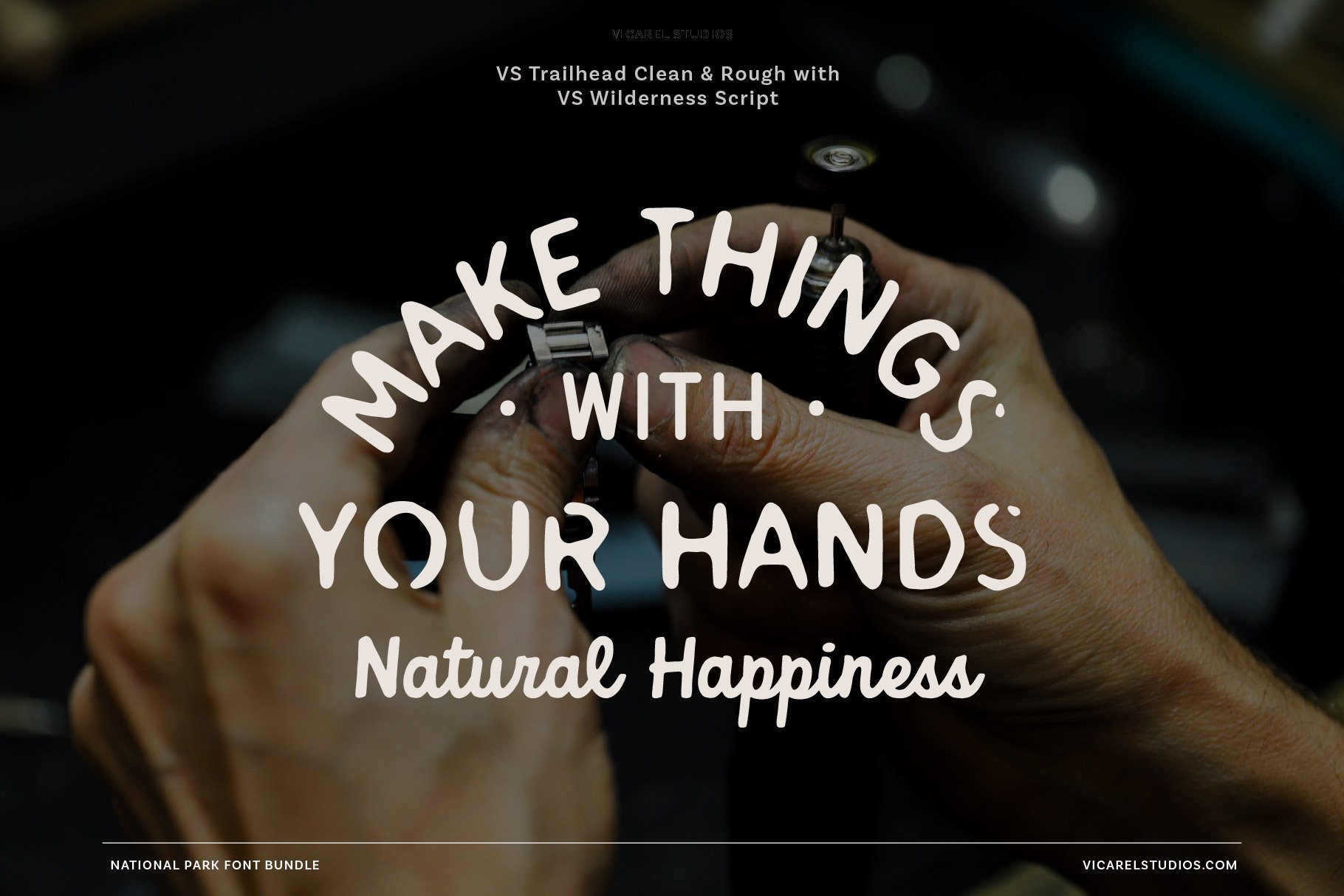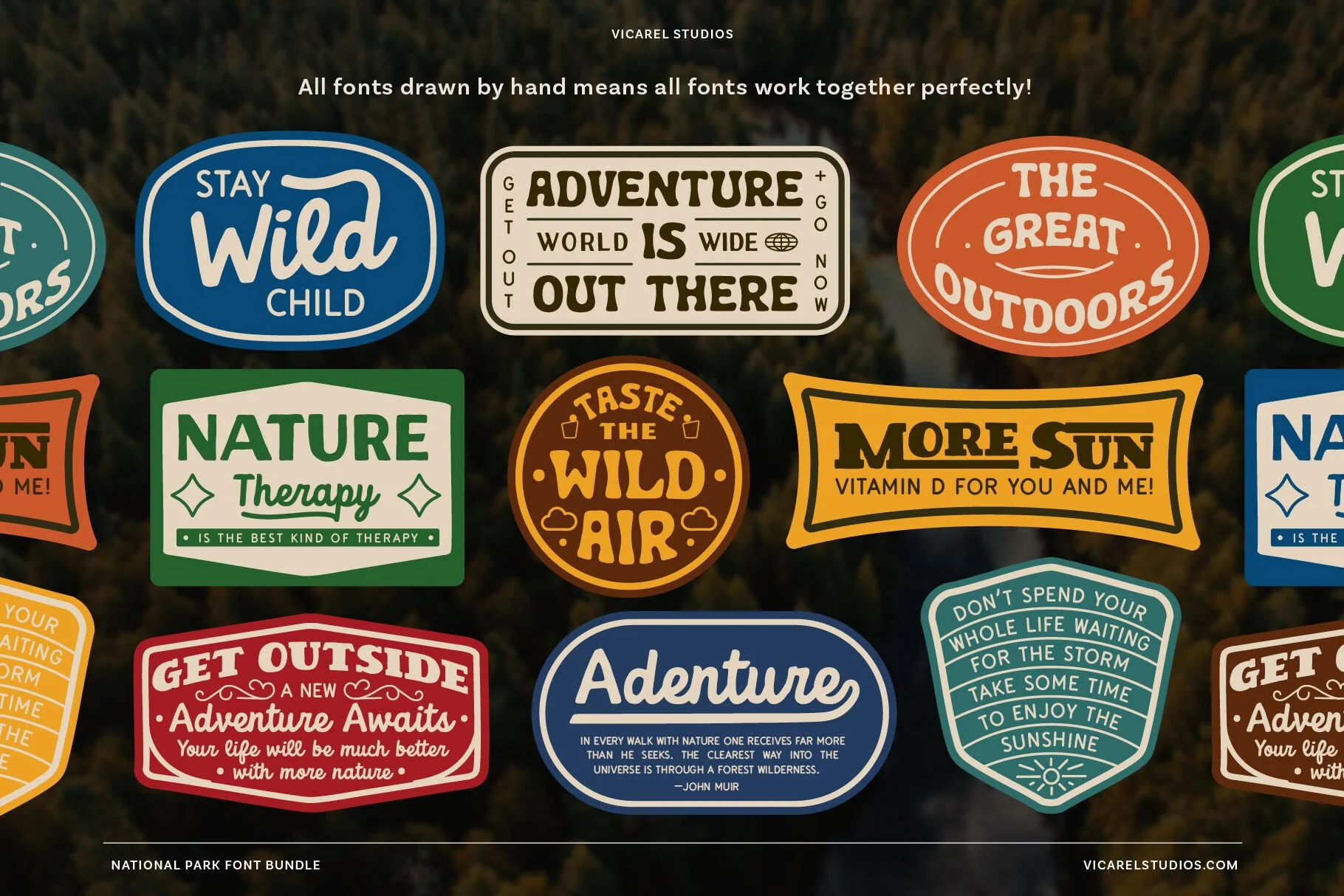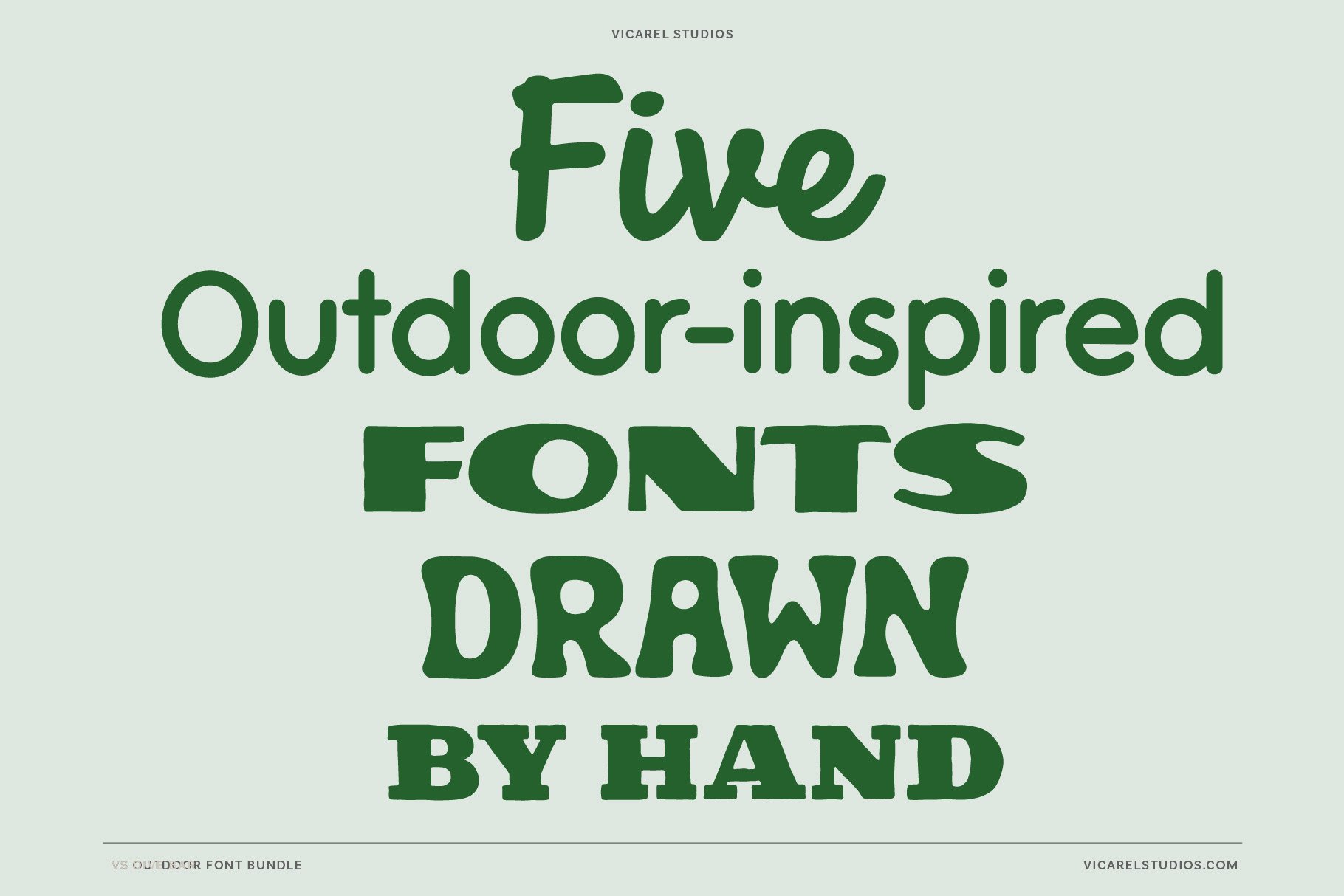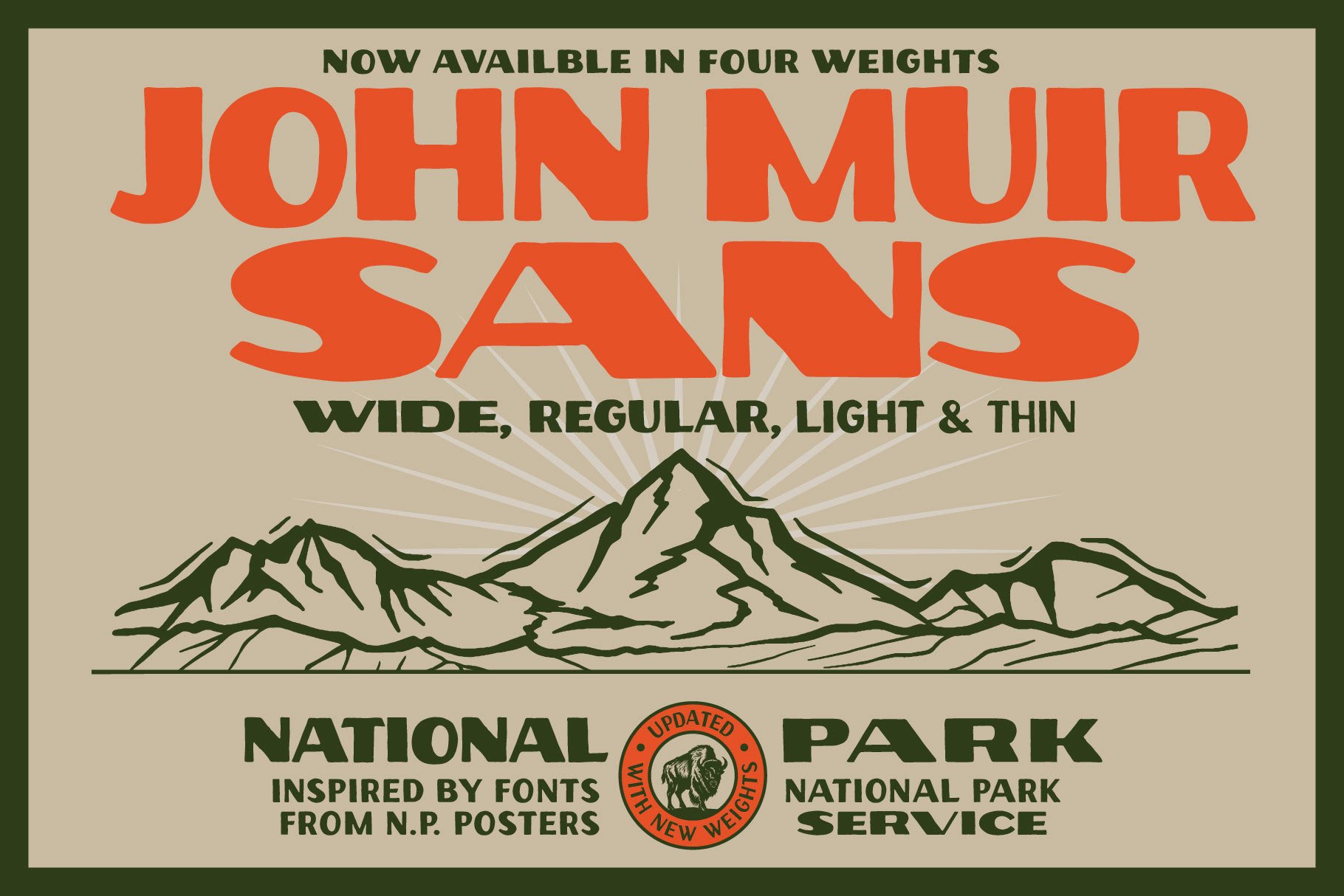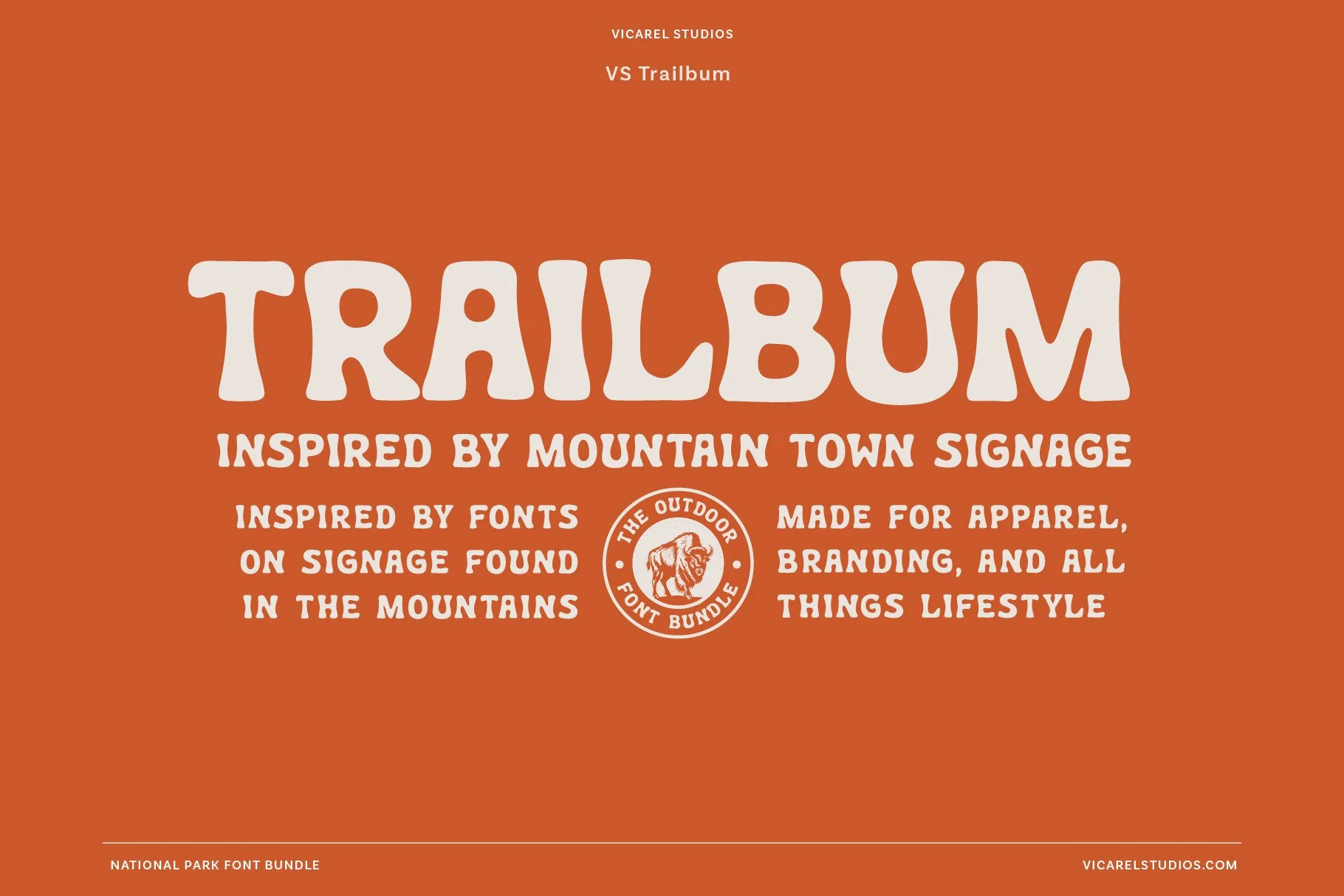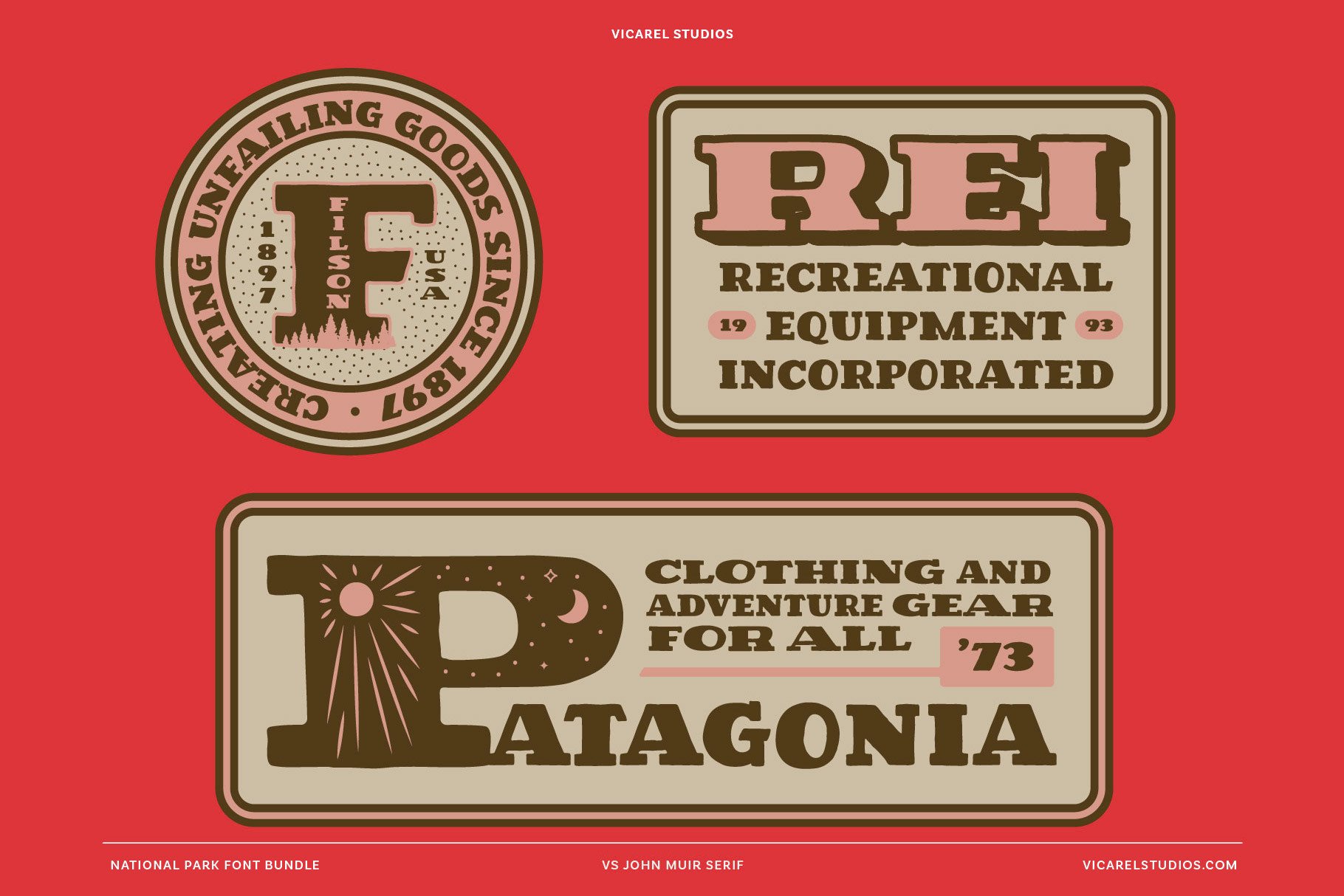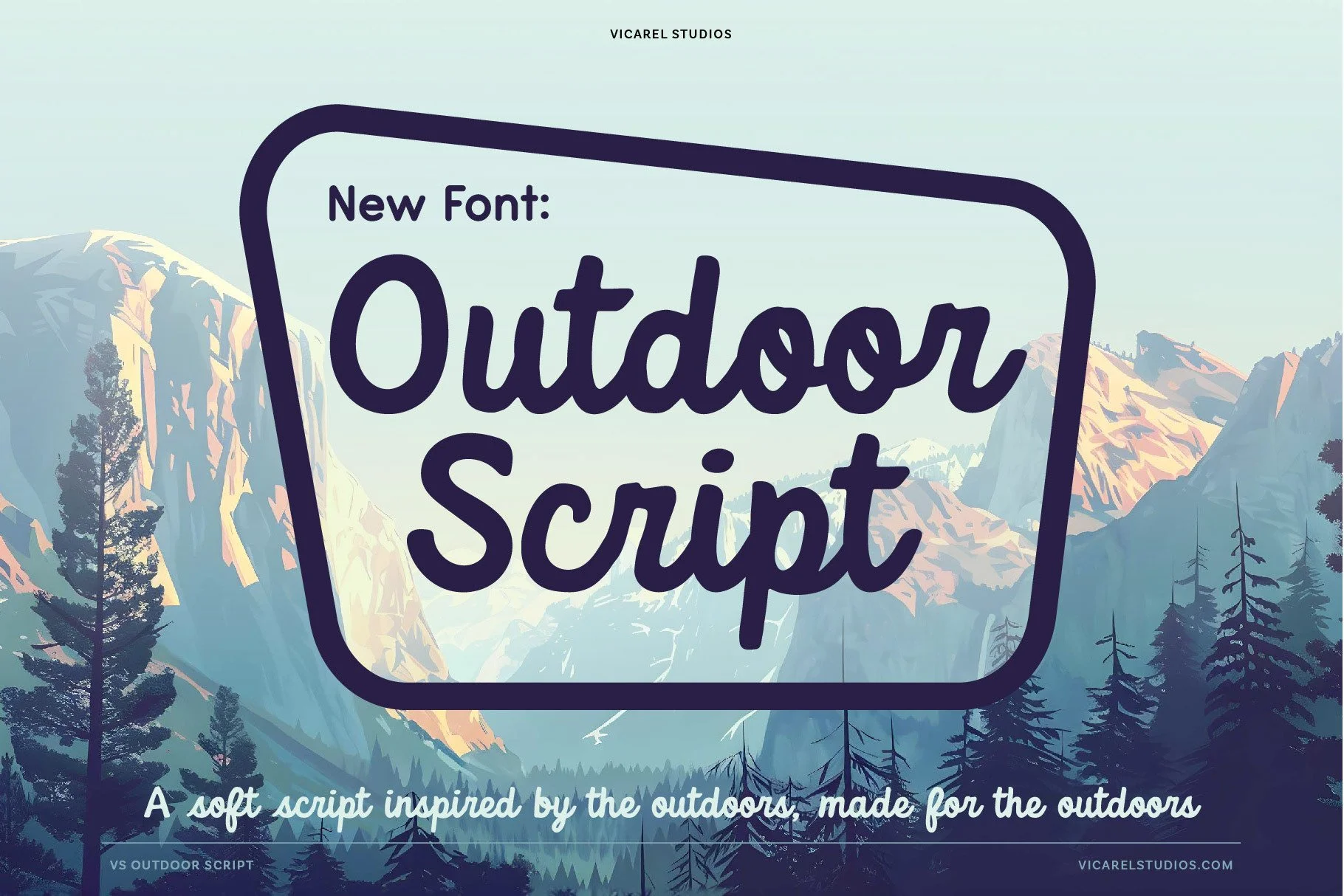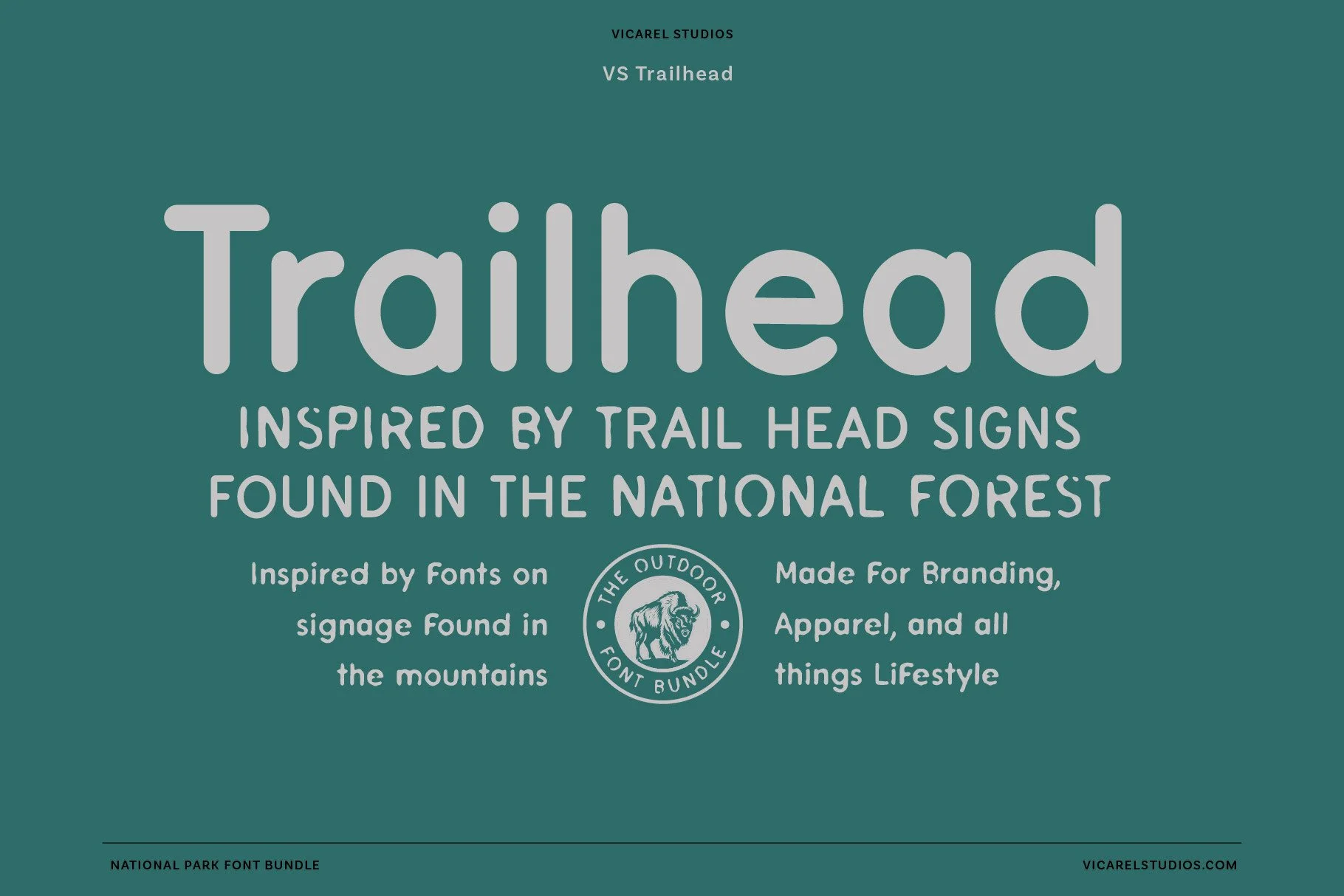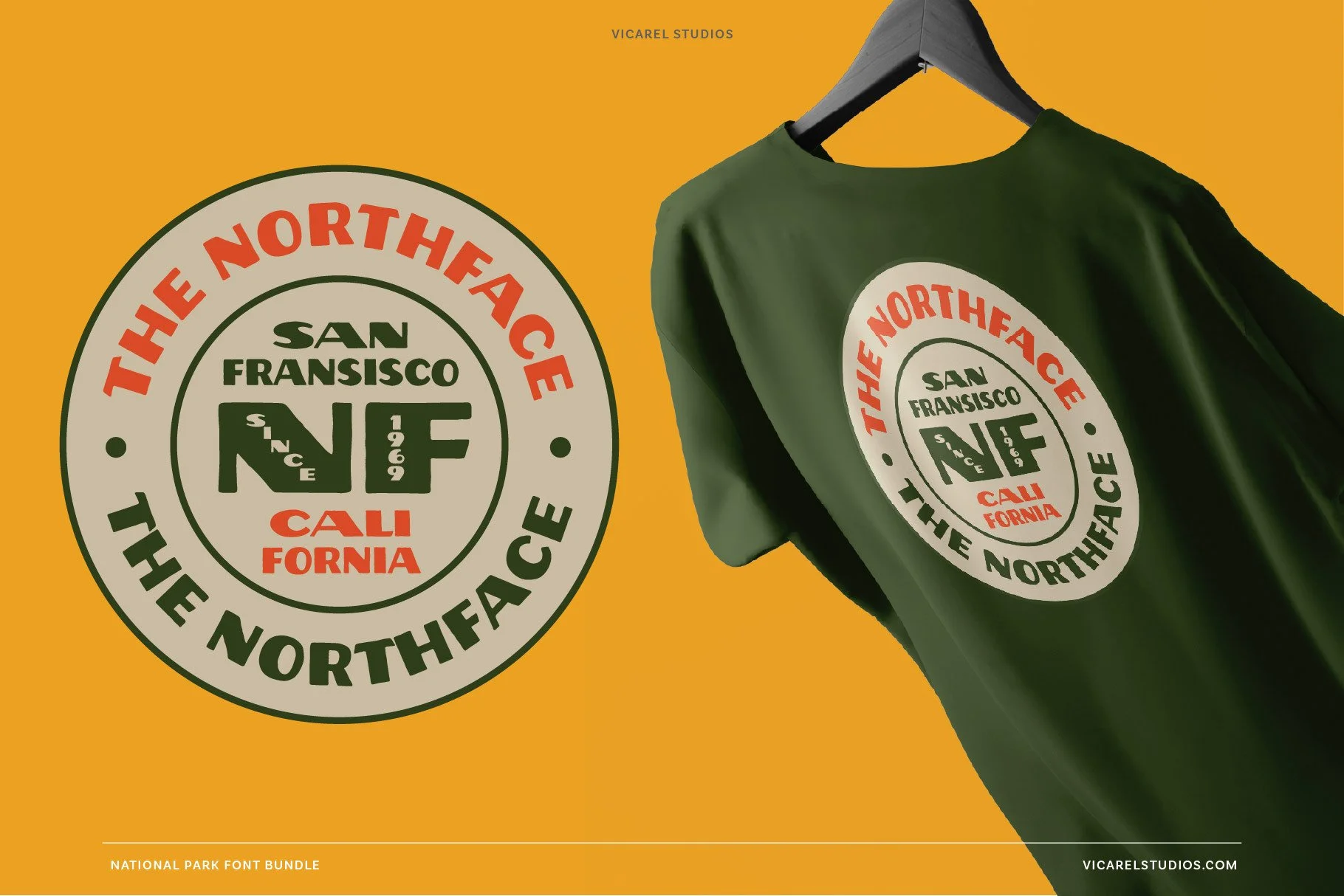
About the Font Bundle
Included in the bundle are John Muir Sans, Outdoor Script, Trailbum, Trailhead, and John Muir Serif. Each font is rooted in nature and crafted by hand. Brining the style of National Park fonts to your finger tips, the Outdoor Font Bundle exudes feelings of adventure, making this bundle the perfect match for outdoor and lifestyle brands, vintage-inspired branding, and any project that needs a touch of rugged elegance.
From logos to posters, these rustic, hand drawn outdoor fonts were designed to complement one another, ensuring a cohesive look regardless of which fonts you mix and match.
Typefaces Included:
Most fonts come with alts, ligatures and glyphs (as described in each individual listing)